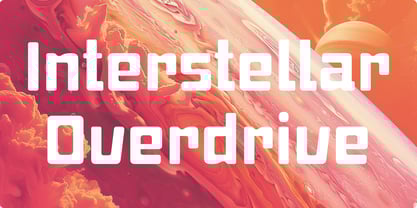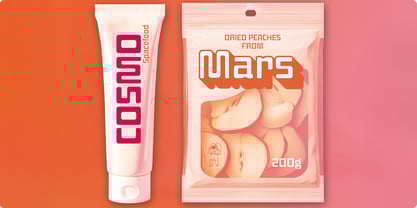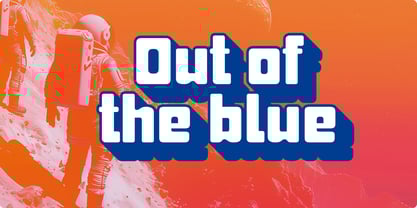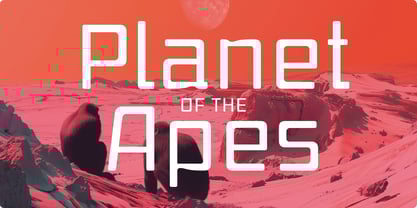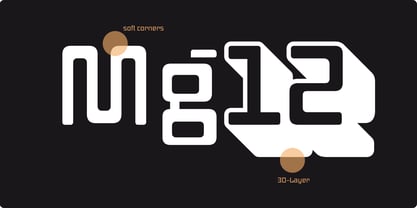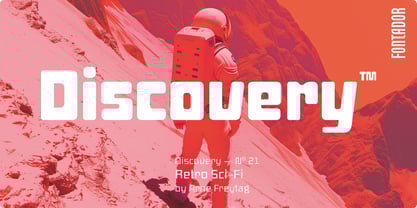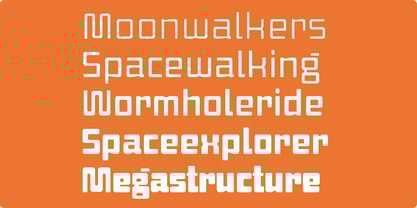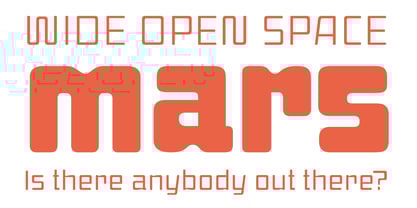
Discovery
by Fontador
The Discovery Font Family was designed by Arne Freytag and published by Fontador. Discovery contains 10 styles and family package options.
Discovery is a retro sci-fi font inspired by futuristic typefaces from the last millennium - characterised by film titles and record covers. With five carefully crafted weights and matching 3D layers, Discovery opens up a multitude of creative possibilities. Whether for expressive logotypes, concise headlines, striking posters, distinctive branding, food design or other creative projects - Discovery combines nostalgic charm with modern aspirations.
About Fontador
Fontador is a small type foundry based in Hamburg, founded by Arne Freytag.¶He was born in Hamburg in 1967. In 1995, he won a scholarship to study Graphic Design at the Kunstschule Alsterdamm art school in Hamburg. As a post graduate in 1998, he attended the Atelier National de Recherche Typographique in Paris. He has published various articles in Tipografica, étapes and the Typografische Monatsblätter. He has been working as a freelance typographic and graphic designer since 2000.